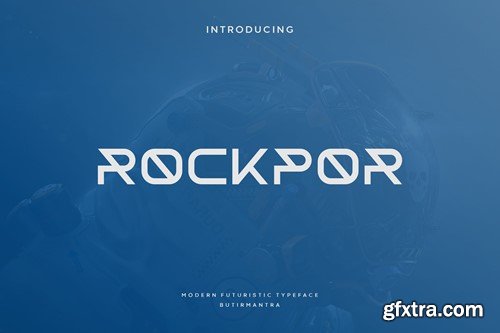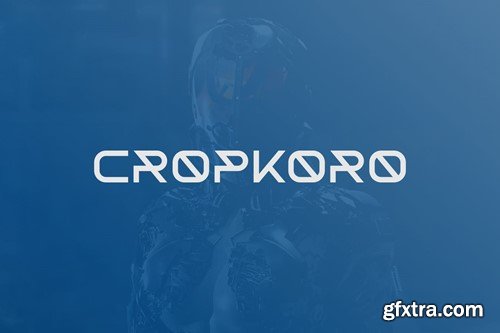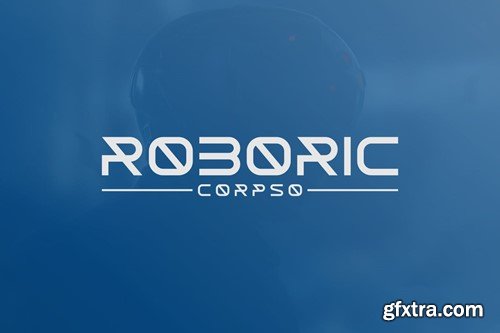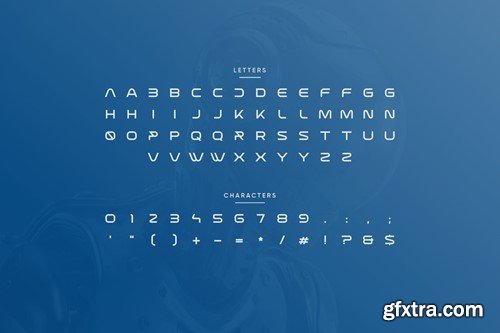
洛克波尔 - 现代未来主义字体T8FXJT3
Rockpor - Modern Futuristic Font
Rockpor is a clean and modern sans serif font, coming in very sophisticated all-caps. The smooth and light execution makes this font look sleek and elegant which is perfect for futuristic and future branding designs. It can easily be adapted to a very large set of projects, so add it to your creative ideas and watch how it makes it stand out! File Included : Thanks for subscribe and good luck with your project!